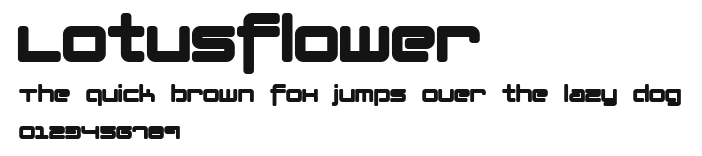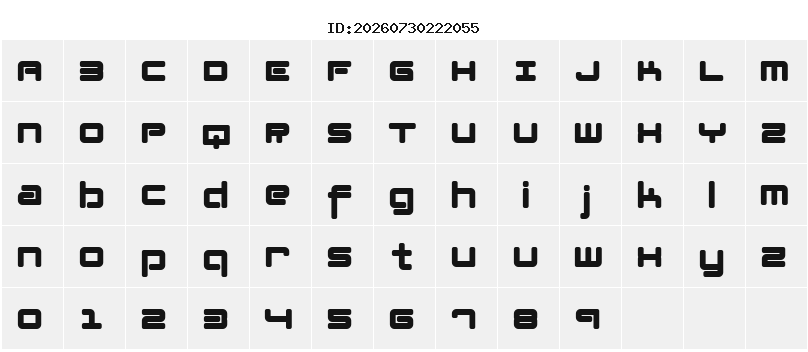
• Font Name: Lotusflower
• Full Font Name: Lotusflower
About Lotusflower.ttf
Lotusflower.ttf is a modern, elegant sans-serif font designed for ultimate readability and visual harmony. Perfect for branding, headlines, web design, and print materials.